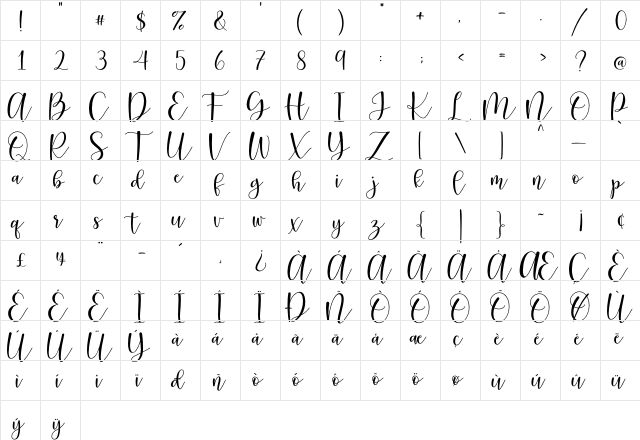
pretty hearty - Personal Use Regular
Design Context for pretty hearty - Personal Use Typeface
pretty hearty - Personal Use is a composed and adaptable typeface that performs quietly and consistently across a wide range of design contexts.